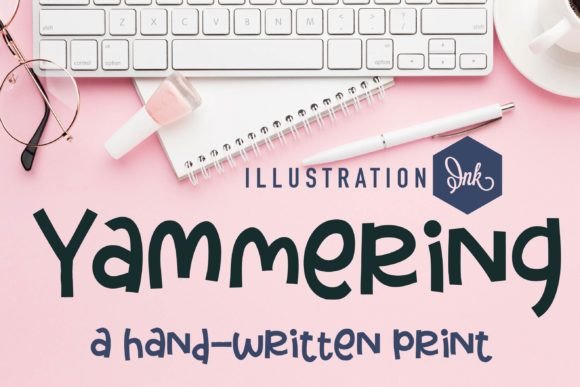
Journey into the realm of creative expression with Yammering Font — the ultimate font family meticulously designed to captivate hearts and ignite imaginations. Handcrafted with playful strokes and an infectious energy, this script font exudes an aura of youthful exuberance, making it an ideal choice for adding a touch of whimsy and delight to your design endeavors.
Immerse yourself in the boundless versatility of Yammering Font, a true chameleon that adapts seamlessly to a myriad of design projects. Whether you're crafting heartfelt greeting cards to convey warm sentiments, designing captivating headlines that demand attention, or seeking to infuse a playful charm into your branding, Yammering Font rises to the occasion, delivering exceptional results every time.
With Yammering Font as your creative companion, you'll discover endless opportunities to express your unique style and leave a lasting impression. Unleash your inner child, embrace the playful spirit of Yammering Font, and embark on a creative journey where joy and inspiration intertwine.
- Handwritten Sans Serif Charm: Experience the beauty of Yammering Font's hand-drawn characters, each meticulously crafted to evoke a sense of authenticity and childlike wonder.
- Youthful Energy: Infuse your designs with an infectious energy that radiates positivity and ignites imaginations.
- Unparalleled Versatility: From greeting cards to captivating headlines and beyond, Yammering Font effortlessly adapts to diverse design needs, adding a touch of delight to every project.
- Ignite Creativity: Spark your creativity and let your imagination soar as you explore the endless possibilities that Yammering Font presents.
- Make a Lasting Impression: Create designs that capture attention, leaving a lasting impression on your audience.
- Express Your Unique Style: Unleash your individuality and let your unique style shine through with Yammering Font as your creative outlet.